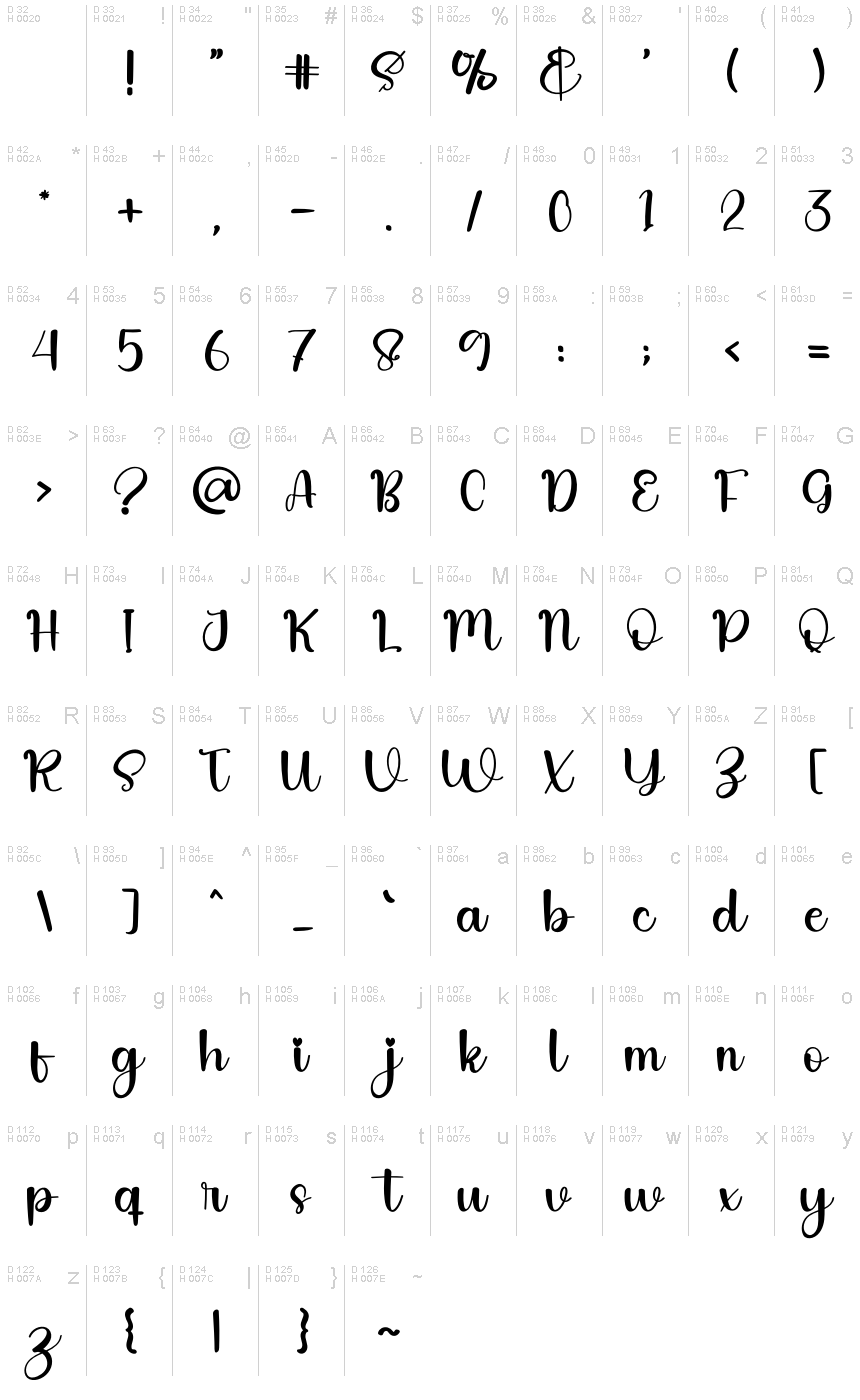
Homade
Homade, crafted by PiPi Creative, evokes the warmth and intimacy of personal correspondence. This handwritten font dances with an organic fluidity, reminiscent of elegant ink flowing across paper. Each stroke bears a human touch, offering a sense of authenticity and charm that digital typefaces often lack.
The casual elegance of Homade makes it ideal for invitations, branding projects that require a personal touch, and creative editorial work where a sense of individuality is key. Its aesthetic appeal lies in its ability to convey genuine emotion and craftsmanship in every curve and line.